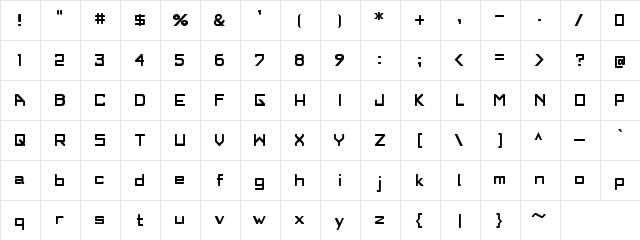
ZANGIEF Regular
| Designer | HOJTOWN |
Design Context for ZANGIEF Typeface
ZANGIEF offers clean, dependable letterforms without strong stylistic allegiance, making it a practical choice for designers who need flexibility.